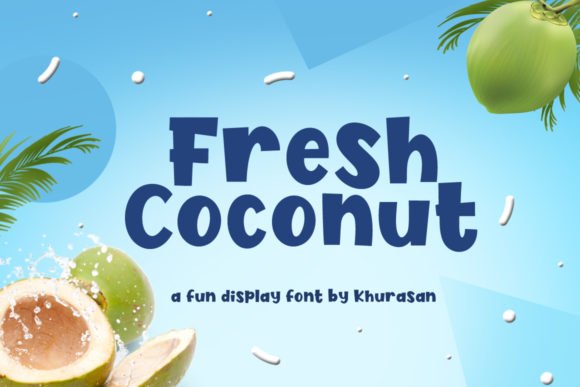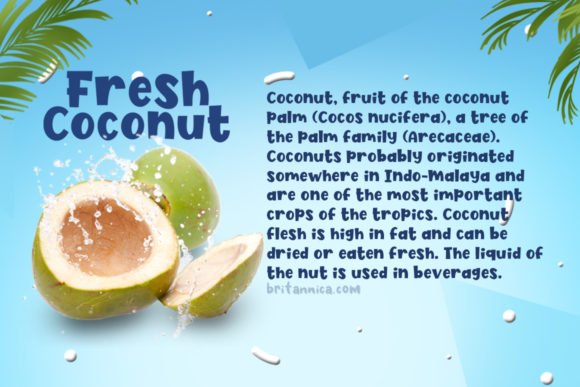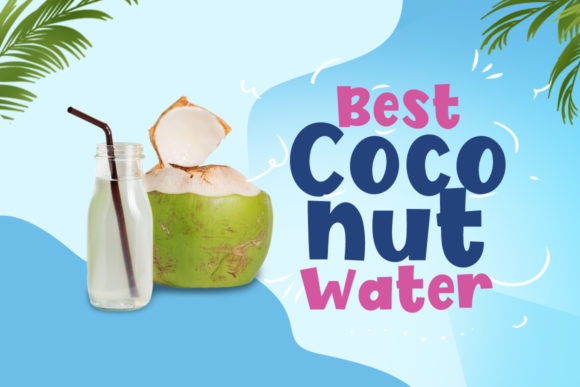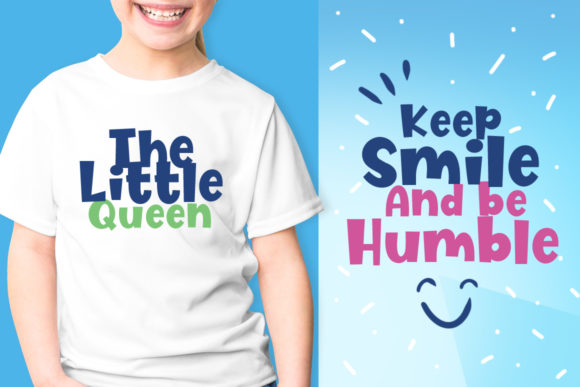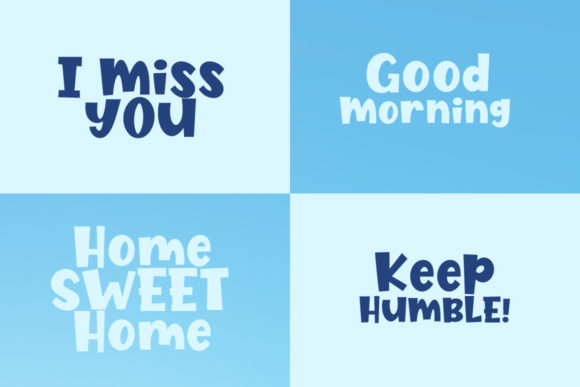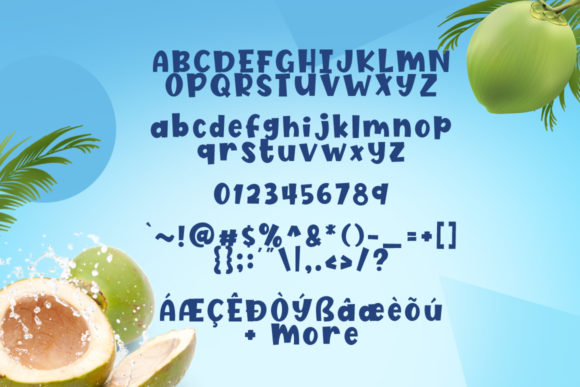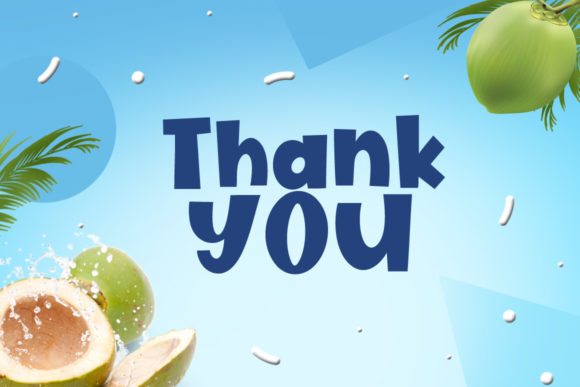
Bring a Taste of Tropical Fun to Your Designs
Have you ever been working on a project, and suddenly, you hit a creative block? You’re searching for the perfect font to elevate your design, but nothing seems to be just right. This is where the magic of typography comes in – a well-chosen font can instantly breathe new life into your work. For me, it was a particularly stubborn graphic design project that required a font that could convey a sense of playfulness and energy.
Enter the Fresh Coconut Font, a delightful display font that’s as fun to read as it is to look at. This chunky, hand-drawn font is the perfect addition to any design project that needs a bit of tropical flair. Its versatility makes it suitable for a wide range of projects, from social media graphics to event invitations and beyond.
Fresh Coconut Font Key Features
- Unique Characteristics: Fresh Coconut Font features a distinctive, hand-drawn design with a natural, organic feel, perfect for adding a touch of whimsy to designs.
Designer Review: Fresh Coconut Font
Overall, I think Fresh Coconut Font is a unique and charming addition to any design project. The quirky, hand-drawn style adds a touch of personality to text, making it perfect for brands that want to stand out from the crowd.
- The font’s irregularities and imperfections give it a natural, human feel that’s hard to replicate with more formal fonts.
- The range of weights and styles offered provides a good amount of flexibility for designers to experiment with different looks.
- The font’s playful vibe is perfect for branding and marketing materials where a fun, lighthearted tone is desired.
- The font may not be suitable for projects that require a high level of professionalism or formality.
- The irregularities and imperfections that make the font so charming can also make it difficult to read at small sizes.
- The font’s limited language support may be a concern for designers working on international projects.
Overall, I think Fresh Coconut Font is a great choice for designers who want to add a touch of whimsy to their projects. While it may have some limitations, its unique style and flexibility make it a valuable addition to any design toolkit.
The Fresh Coconut Font is perfect for:
- Creative branding and logos
- Food and beverage packaging
- Tropical and beach-themed designs
- Summer and vacation-themed materials
Getting the Most Out of the Fresh Coconut Font
To get the most out of the Fresh Coconut Font, try:
- Combining it with bright and pastel colors
- Using it for bold and eye-catching headings
- Pairing it with other tropical fonts and graphics
- Use the font for the main title of the invitation, highlighting the tropical theme.
- Pair it with colorful floral patterns and palm tree illustrations to create a cohesive look.
- Combine the font with a soft, pastel color scheme to evoke a sense of relaxation and tranquility.
- Use the font for the brand name and logo, emphasizing the natural and refreshing qualities of coconut water.
- Combine the font with a simple, minimalist design aesthetic to convey a sense of purity and simplicity.
- Use a color scheme that reflects the tropical origin of coconut water, such as shades of green and blue.
- Use the font for the main headings and subheadings, highlighting the exotic flavors and ingredients of the dishes.
- Pair it with colorful illustrations of tropical fruits and flowers
To use Fresh Coconut Font in this project:
Tip: Use a sans-serif font for the body text to create a nice contrast with the Fresh Coconut Font.
Coconut Water Branding
Develop a brand identity for a coconut water company using the Fresh Coconut Font.
To use Fresh Coconut Font in this project:
Tip: Use a stylized version of the Fresh Coconut Font to create a unique logo that stands out in the market.
Tropical Restaurant Menu
Design a menu for a tropical-themed restaurant using the Fresh Coconut Font.
To use Fresh Coconut Font in this project: